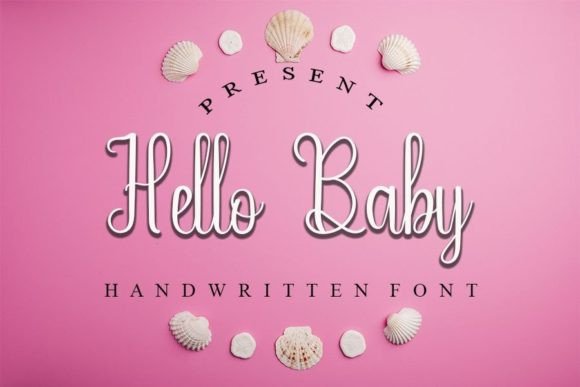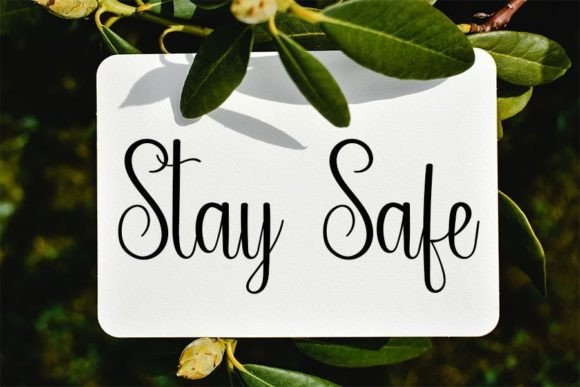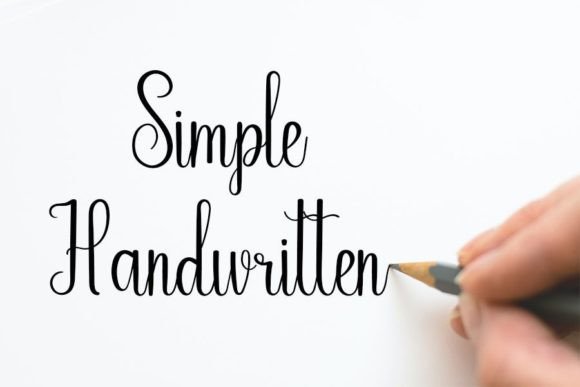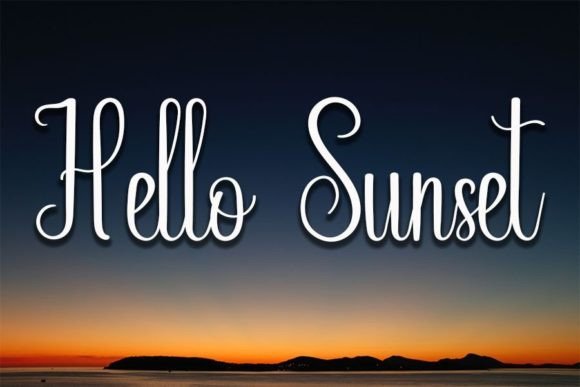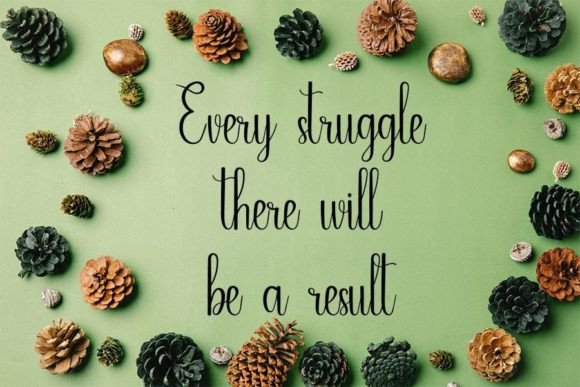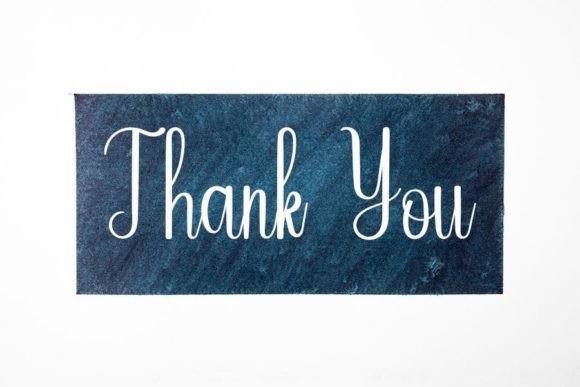
Hellobaby Font
HelloBaby is a slim and delicate handwritten font that embodies a sense of daintiness and joy. With its slender and graceful appearance, this font is particularly well-suited for writing wedding invitations, cards, or any design that calls for a romantic and personalized touch.
The slim and delicate design of HelloBaby imparts an elegant quality, making it an excellent choice for projects where a refined and romantic aesthetic is desired. Whether you’re working on wedding invitations, greeting cards, or any other design that requires a touch of romance, HelloBaby adds a unique charm to your text.
Picture HelloBaby gracing the pages of wedding invitations, where its delicate strokes contribute to a romantic and intimate atmosphere. The font’s slender and graceful letters enhance the overall elegance of your text, creating a memorable impression.
Incorporate HelloBaby into various design projects where a personalized and romantic touch is essential. Its dainty and joyful appearance makes it versatile for adding a whimsical and charming element to your creations.
In conclusion, HelloBaby is more than just a font; it’s a design asset crafted to bring a slim and delicate touch to your projects. Elevate your wedding invitations, cards, and other designs with the romantic and personalized aesthetic that HelloBaby provides. Let this font be the key to creating delightful and charming creations that leave a lasting impact.